Graffiti or Street Art has been linked with something negative, mostly seen as a way of rebelling or something obscene in the past, but as the years have gone by, graffiti has progressed and developed in an esteemed way. Street Art is now seen as pockets of an expressive and creative community creating an artistic and free element on the streets.
Sterous Spray Paint Graffiti Font
If you’re looking for something with texture, geometry with that softness from the spray paint effect, then this font is for you! The Sterous font makes a great addition to your font library and for a textured street art vibe. Click here to download this font.
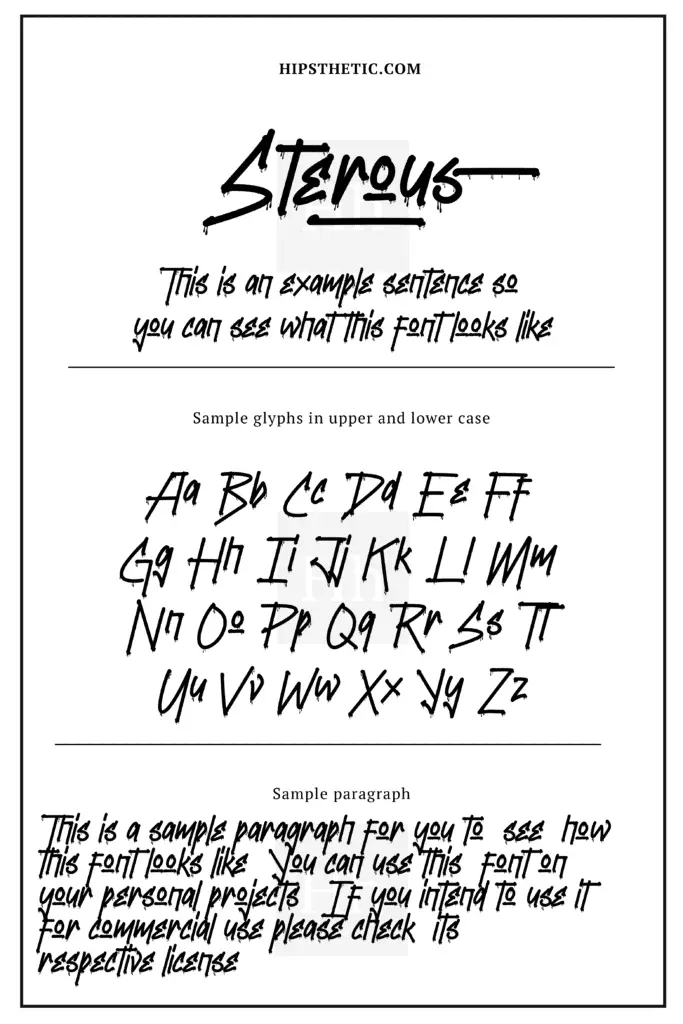
Crooth Spray Paint Graffiti Font
What we love about Crooth is how it plays with different weights on the characters. Its outline style also makes the graffiti font gives that unique artsy vibe. To try out and download this font, click here.
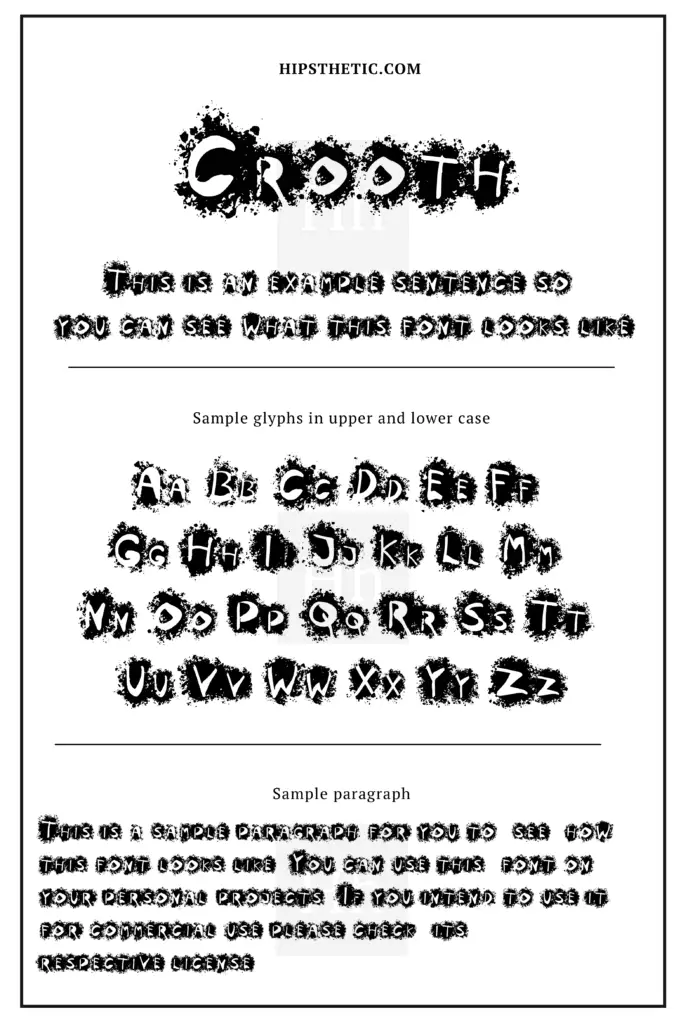
Beat Street Graffiti Font
The Beat Street Font displays that “clean” looking graffiti font with a touch of texture. This deems to be a great font to use on designs and projects that call for polished with a touch of street style vibe. To download this font, click here.
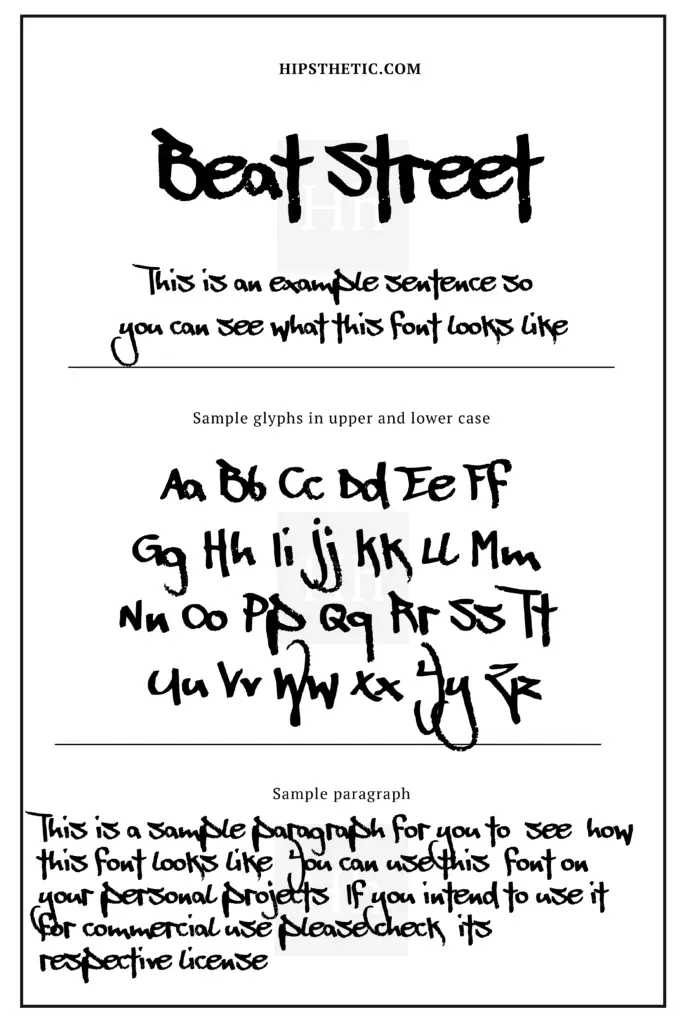
Barbaric Street Font
If you’re eying for something bold, textured, and has a street graffiti vibe, then this font is for you! The Barbaric font gives that striking look with its bold all uppercase characters and subtle grain texture. This is definitely a font to try out on headings & title texts. To try out and download this font, click here.
Street Photography Graffiti Font
This graffiti-inspired font, presents thinner lines, and curves with an abundance of texture, making the font look put together with a hint of street vibes. This font can surely go well on your modern projects featuring this aesthetic. Download and try out this font here!
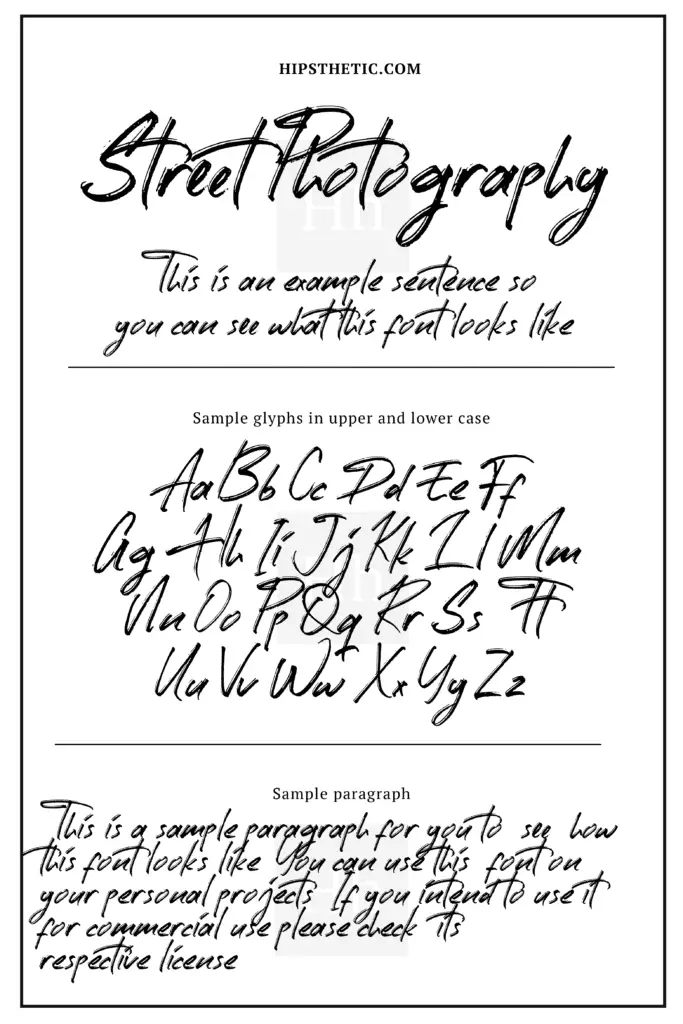
Accessories Urban Spray Paint Graffiti Font
What we love about this font is how it collaborates that spray paint graffiti look, with a subtle dainty vibe. This font will surely go well as an accent font for captions and body texts as it features all lower case characters. If you’re keen to try out this font, check it out here!
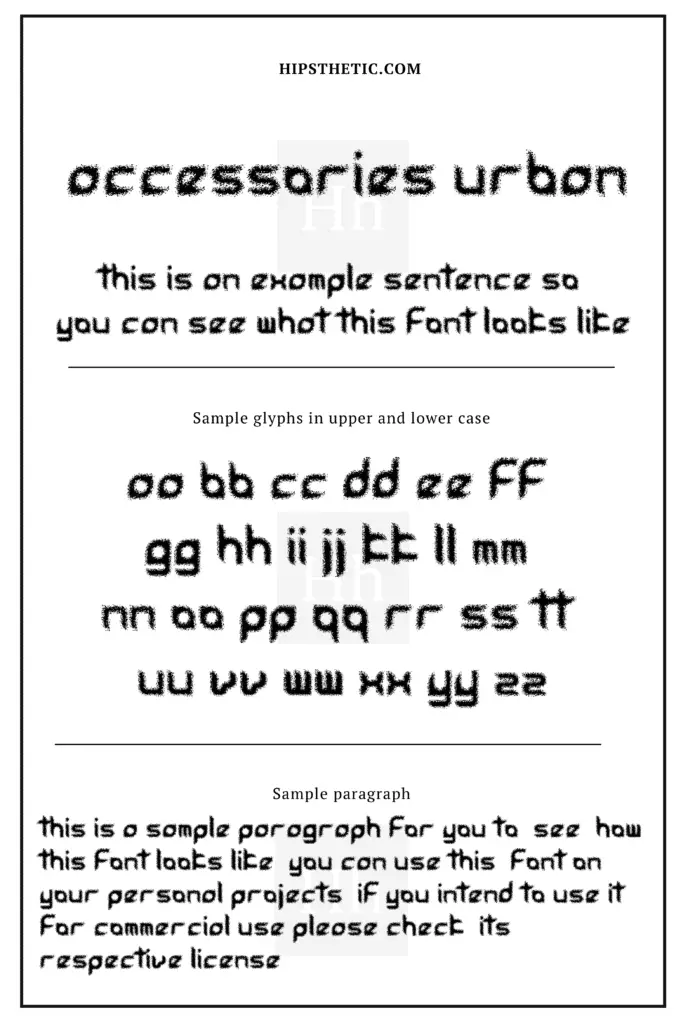
Grafipaint Spray Paint Graffiti Font
For us, the Grafipaint font gives you a mesh of two vibes. The first is the graffiti street look, and the second is a warm handwriting look. We love how these vibes are meshed together creating this wicked aesthetic. If you want to download and try this font click here.
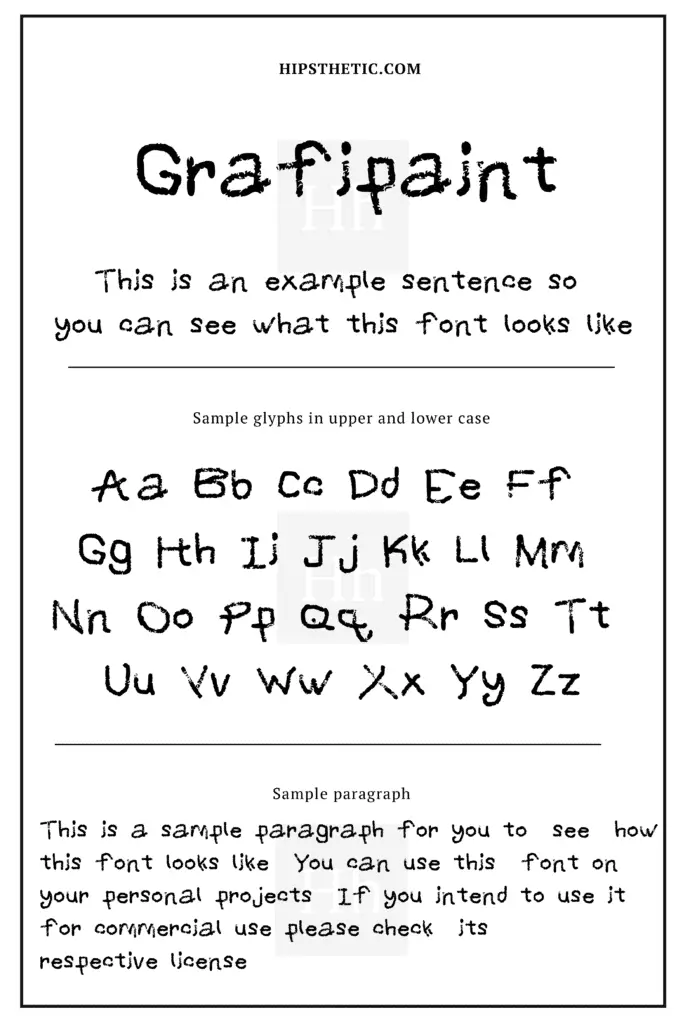
Gasmask Spray Paint Graffiti Font
This font showcases different elements in one! It has the spray paint effect, a stencil look as well as dripping font embellishments! This surely captures that street vibe aesthetic, and can surely bring that extra oomph to your designs. If you’re interested to download this font, click here.
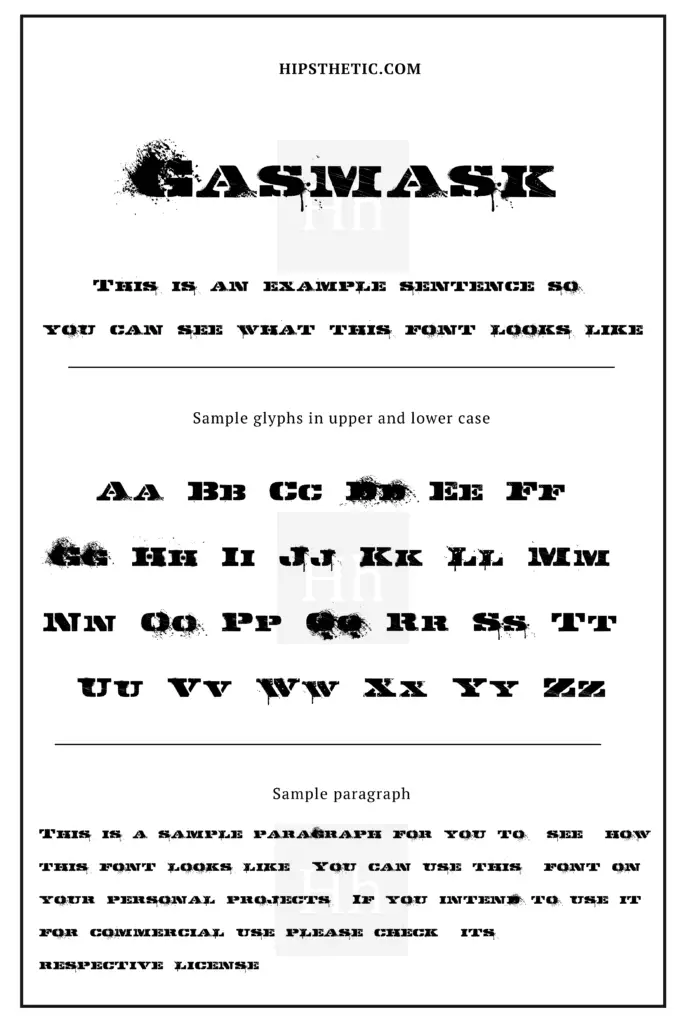
Attack Graffiti Font
Looking for something street style with an element of softness? This font is definitely the one! We love how the Attack Graffiti font mixes that graffiti-style yet caps it with almost bubble-like edges giving the whole font a soft and easy on the eyes overall look. To download this font, click here.
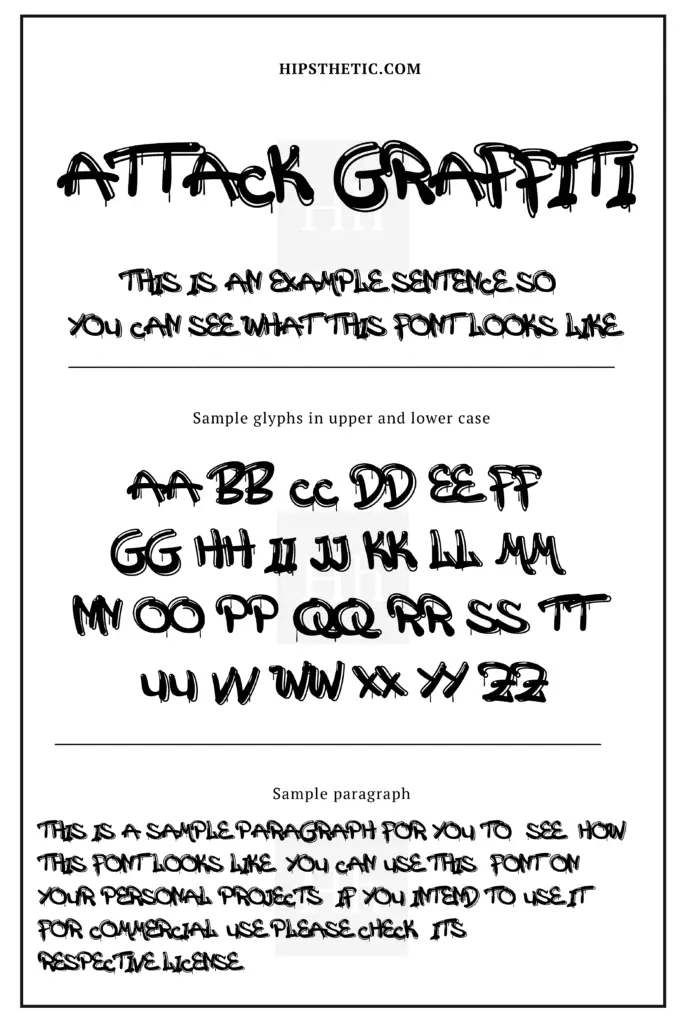
Spray Paint Graffiti Fonts